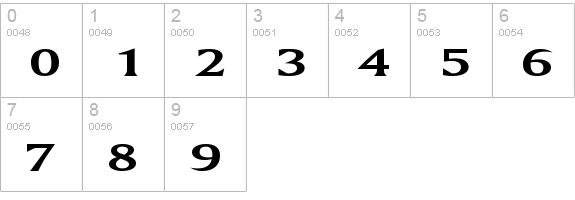
Ameretto Extended Bold is a strong, high-contrast, extended-width variant in the Ameretto typeface family \xE2\x80\x94 well suited to headlines, attention-grabbing titles, and strong calls-to-action.
Introducing Ameretto Extended Bold font, the epitome of modern sophistication and timeless elegance. This striking typeface exudes confidence with its bold and dynamic letterforms, making it the perfect choice for headlines, logos, and branding projects that demand attention. With its extended proportions and sharp edges, Ameretto Extended Bold commands authority and exudes a sense of strength and power. Whether used in print or digital media, this font makes a bold statement that is impossible to ignore. Best of all, Ameretto Extended Bold font is available for free download exclusively at FontsMarket.com. Don't miss the opportunity to add this versatile and impactful typeface to your design arsenal today!